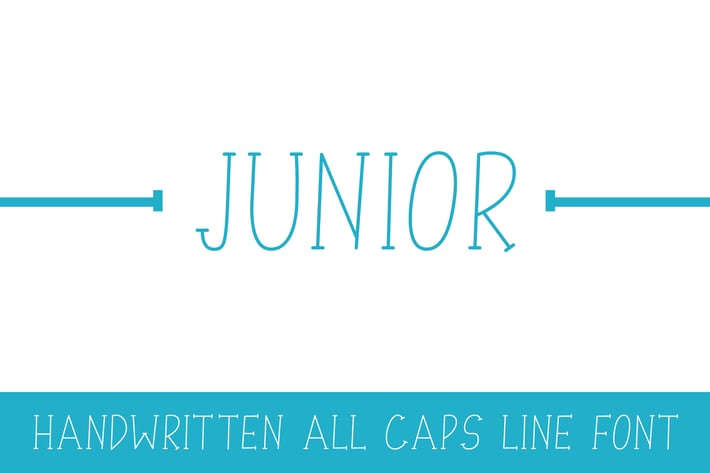
Junior - Line Font
Junior - Handwritten serif style line font.
Junior is handwritten all caps playful decorative Line font. Suitable for titles and small funky paragraphs.
Hand drawn letters
All Caps Font
* Serif style minimal design